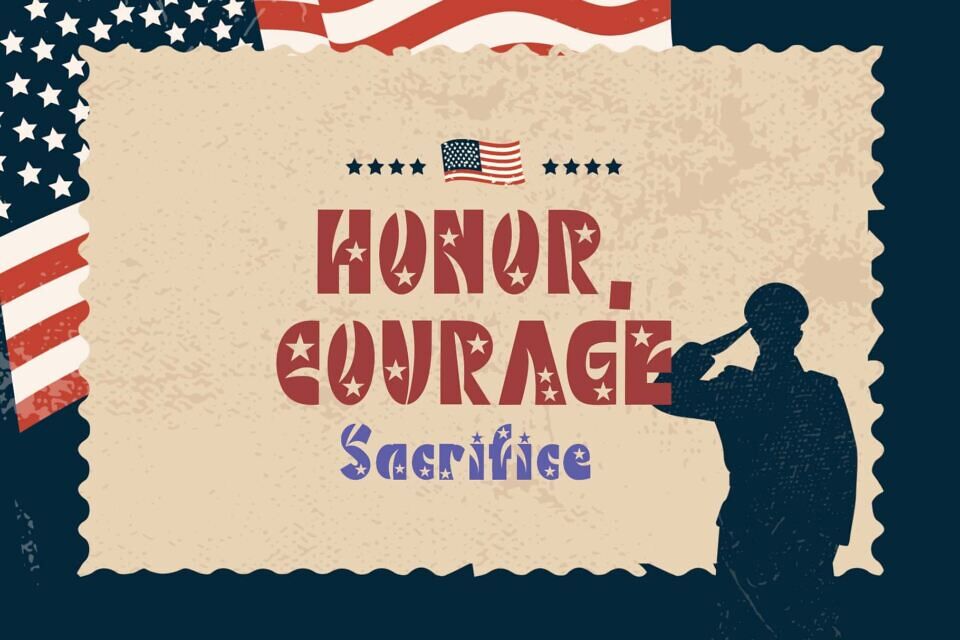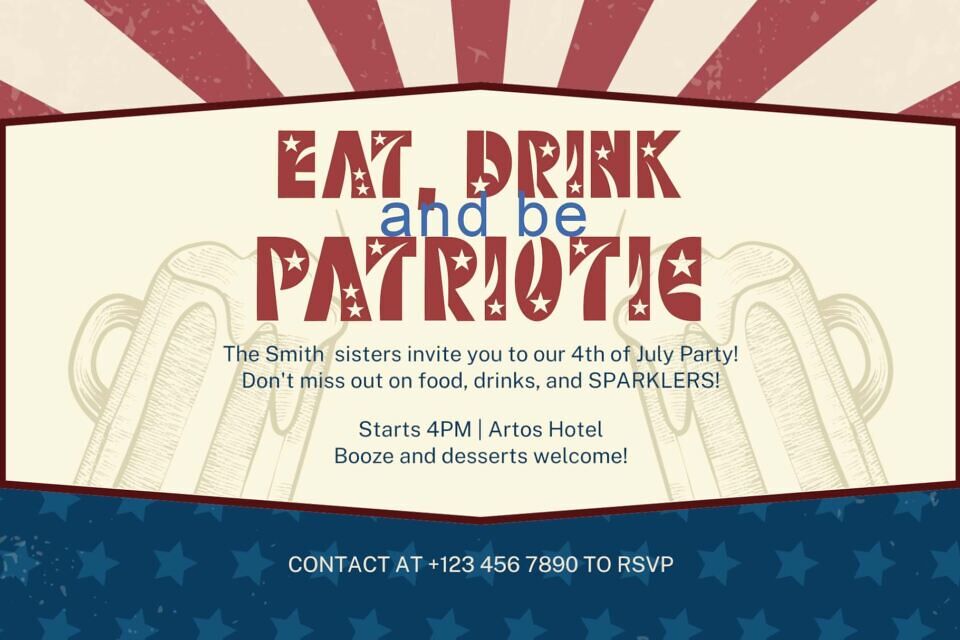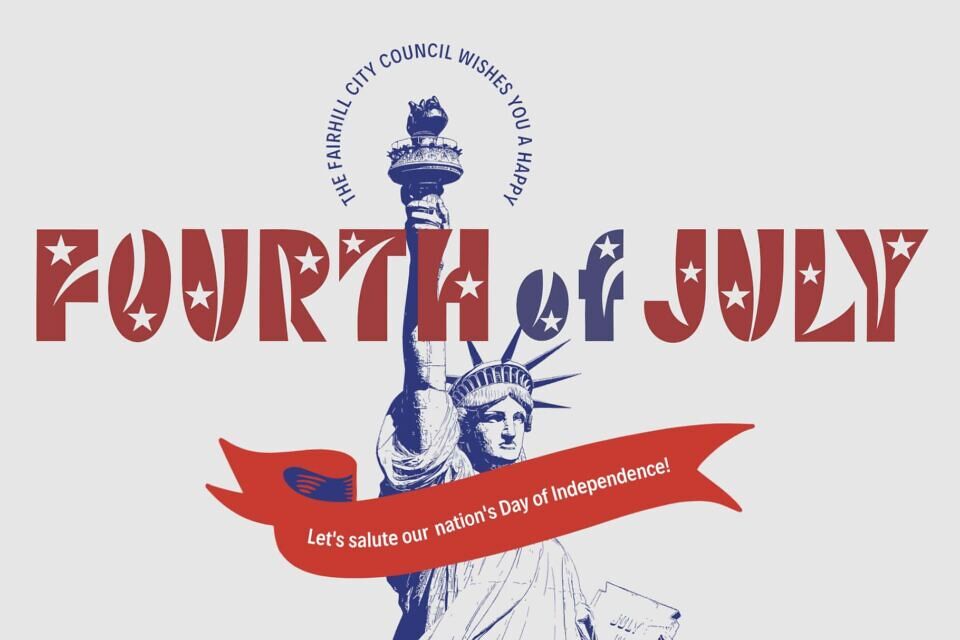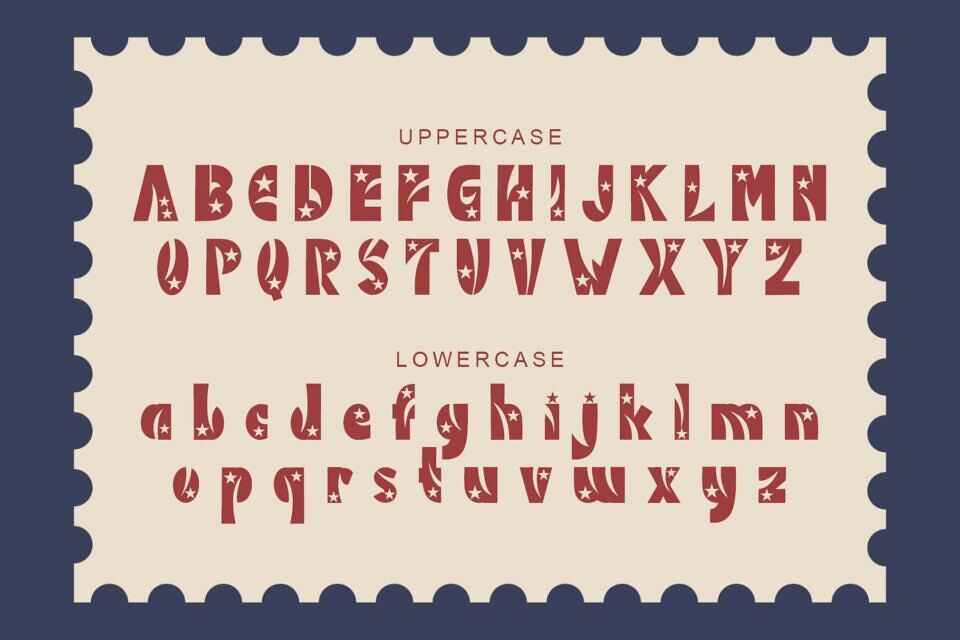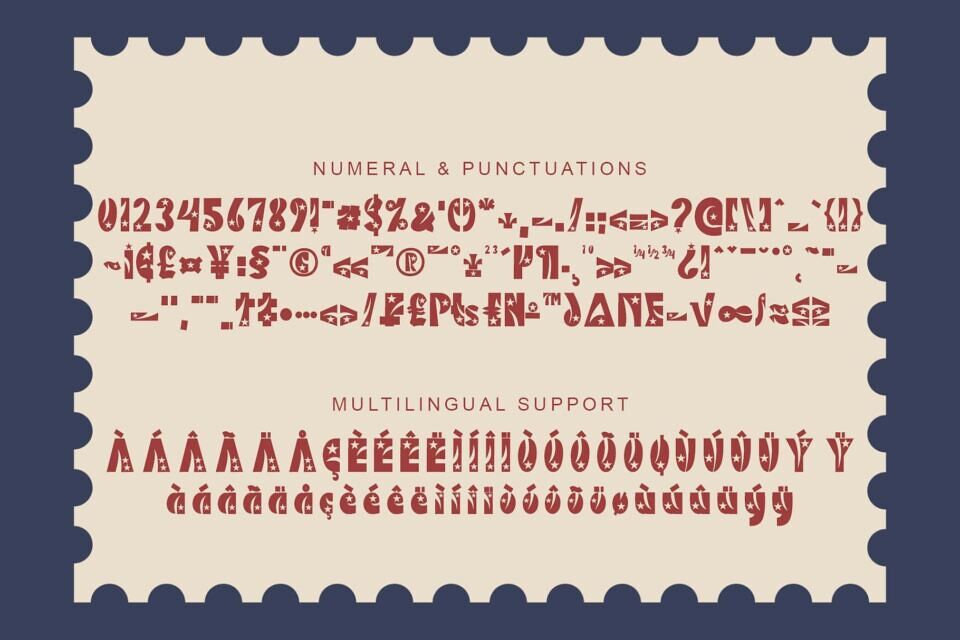
Christmas Soldier is a unique and elegant blackletter font with star decoration on each letter. This font is equipped with uppercase, lowercase, numeral, punctuations and multilingual support.
Very suitable for 4th of July, patriotic, independent day, christmas, summer, spring, father’s day and others.